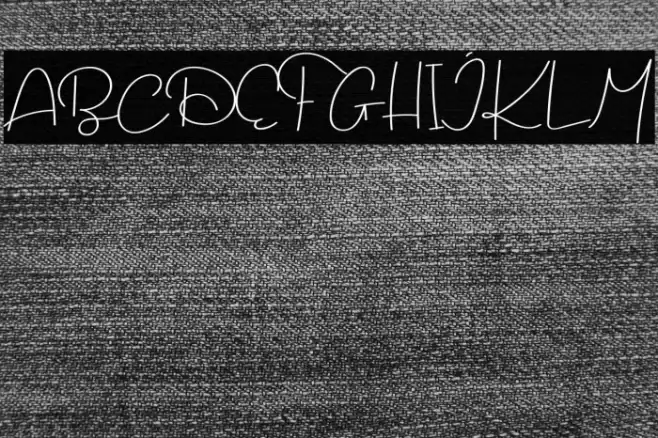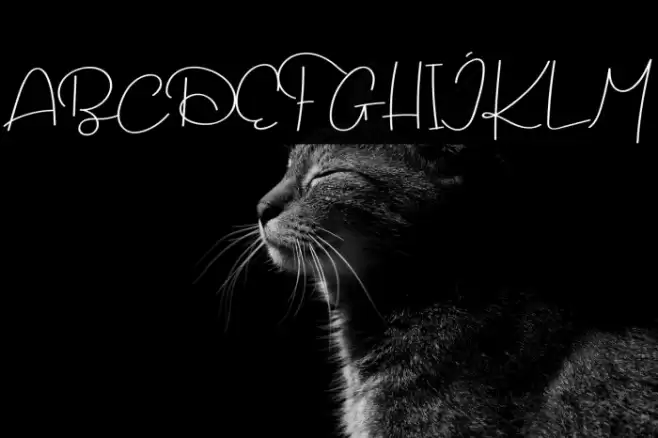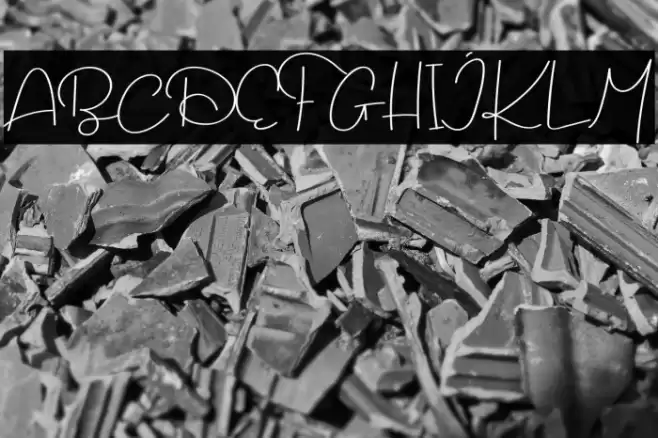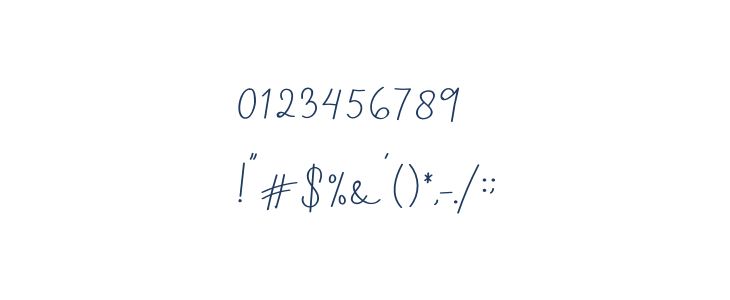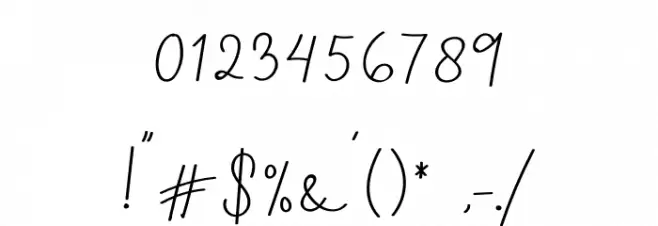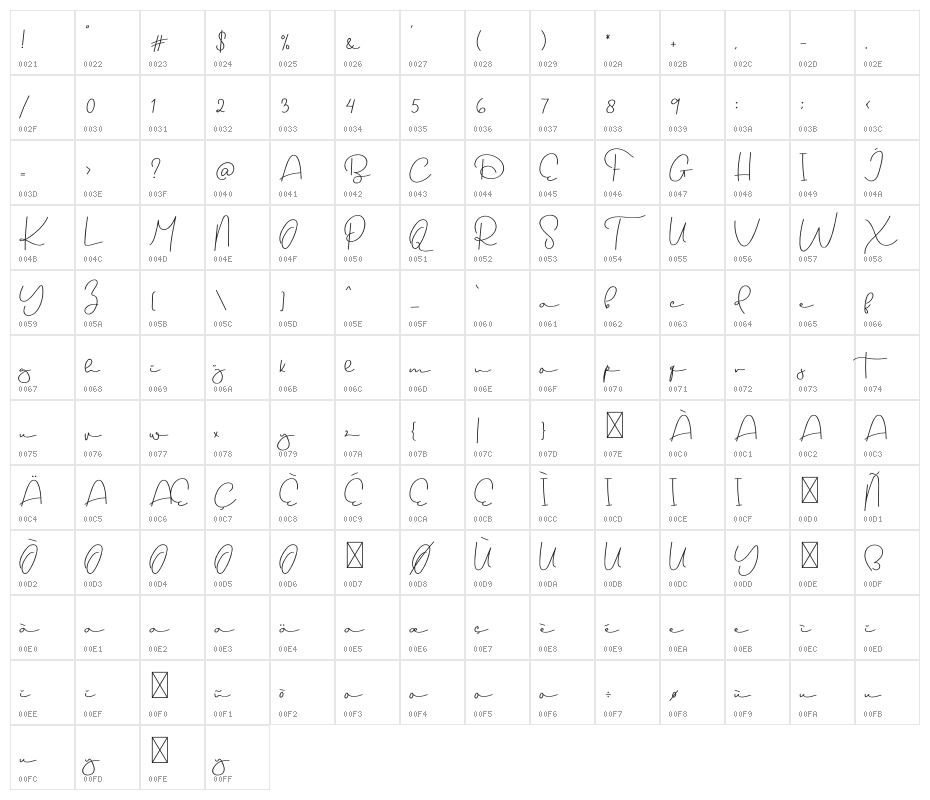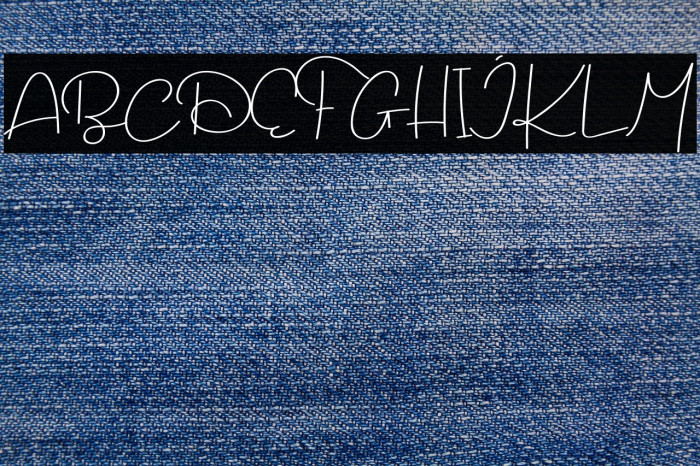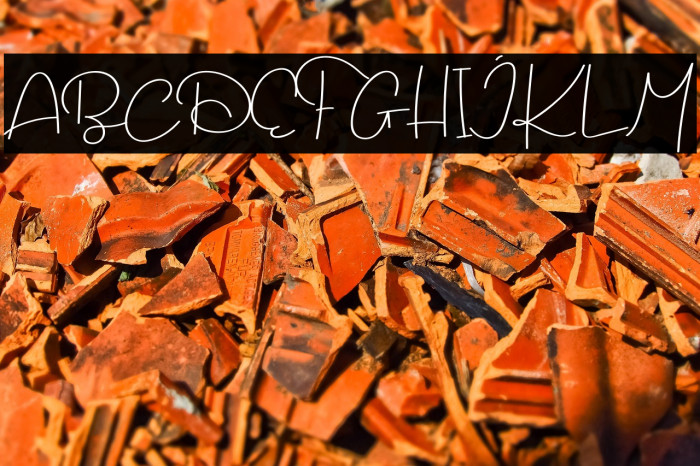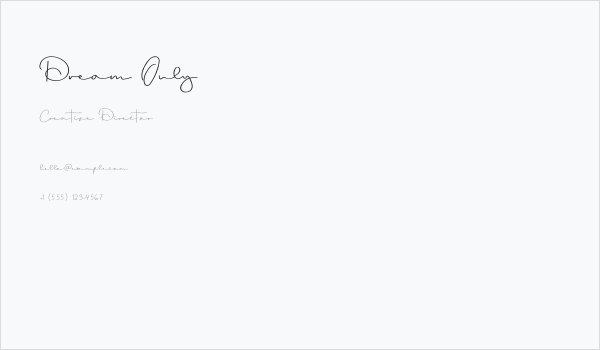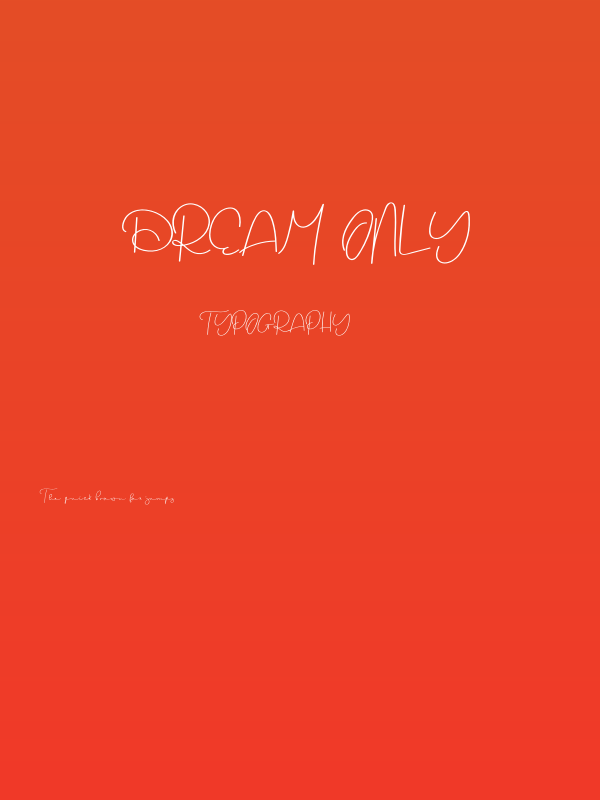
Dream Only Font
Dream Only Description
This font features a whimsical and flowing script style, characterized by its elegant and fluid letterforms. The uppercase letters exhibit a playful yet sophisticated design, with varying stroke widths that add a dynamic touch. The lowercase letters maintain a consistent flow, enhancing readability while retaining an artistic flair. Numbers and special characters are crafted with the same attention to detail, ensuring a cohesive look across all text. The overall appearance is both modern and timeless, making it suitable for a variety of creative applications.
A whimsical and elegant script font with fluid letterforms and dynamic strokes from Uncategorized fonts.